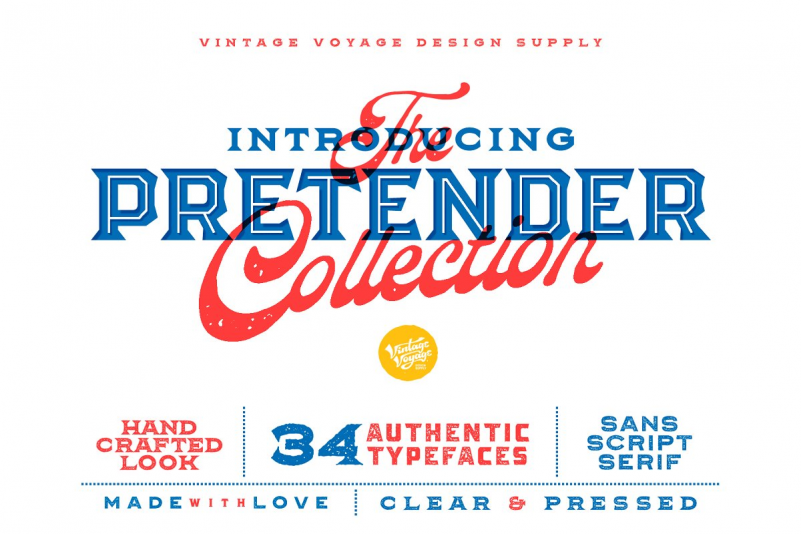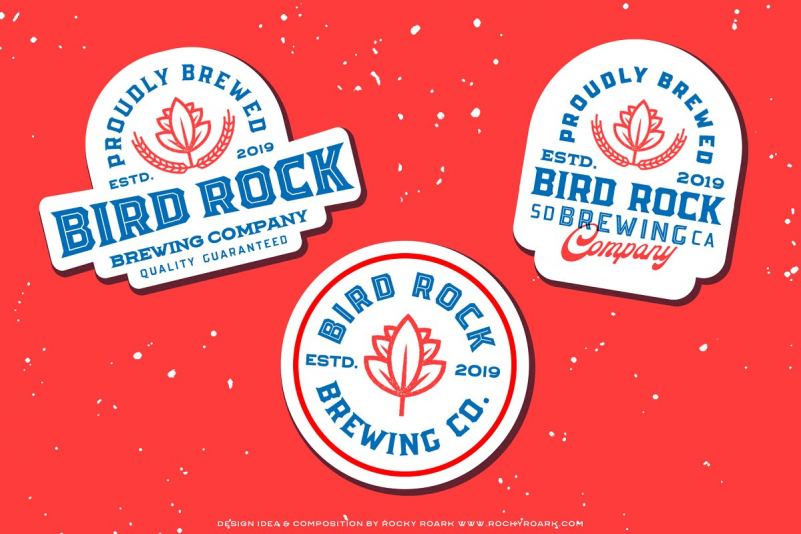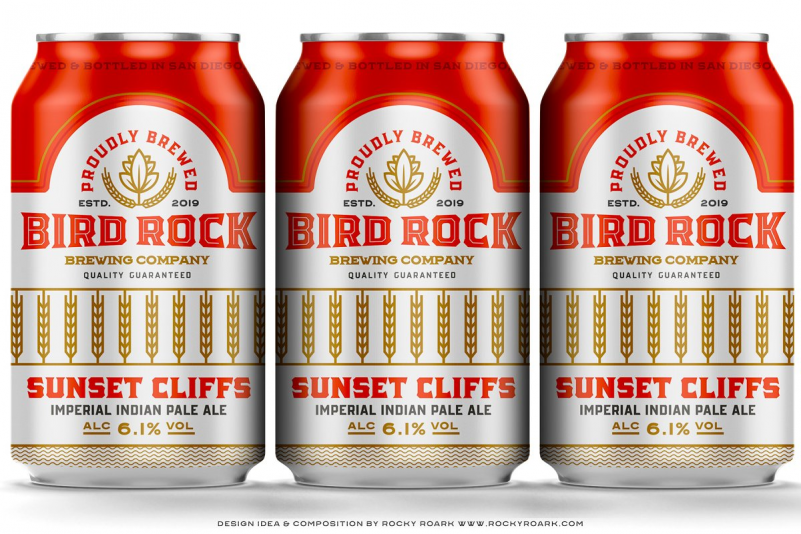
The Pretender Collection Font
This collection was born and inspired by American sign painting typography and vintage package design. Wide range of styles for a wide range of use. This collection gives you awesome vintage look effect, which one will add the hand-touch feeling for your project. Light, Regular, Medium and Bold widths goes as Sans and Serifs and Normal or Expanded! And, of course, vintage candy Script! But that’s not all – Every font comes as a Clear and Pressed style! So, you get a 34 authentic typefaces!